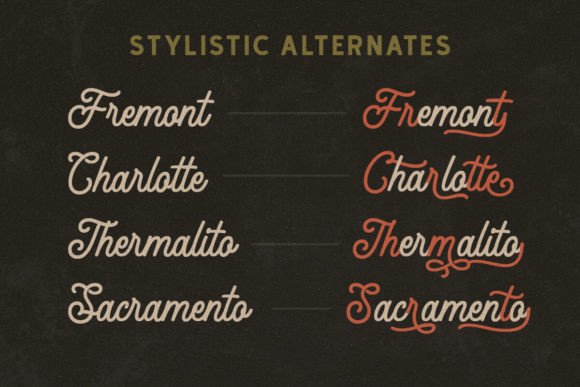
Thunder Heat Duo Font
Thunder Heat is a monoline font duo with classic looks. You can play around to fit the form using the sans serif and script versions. No matter the topic, this font will be an incredible asset to your fonts’ library, as it has the potential to elevate any creation.